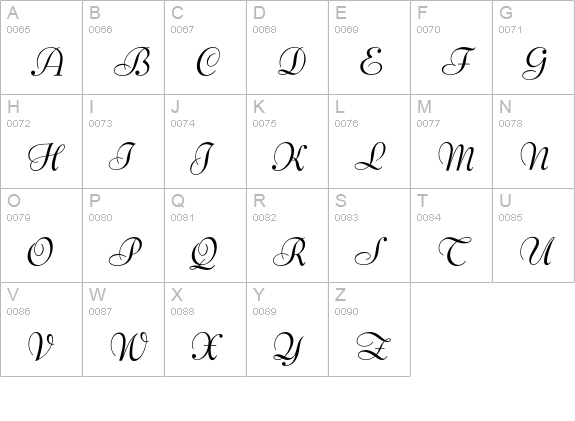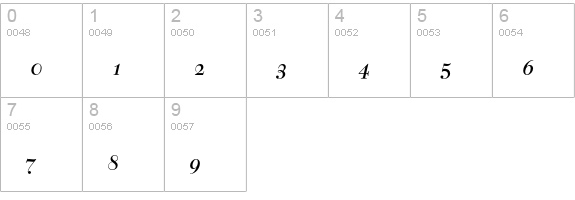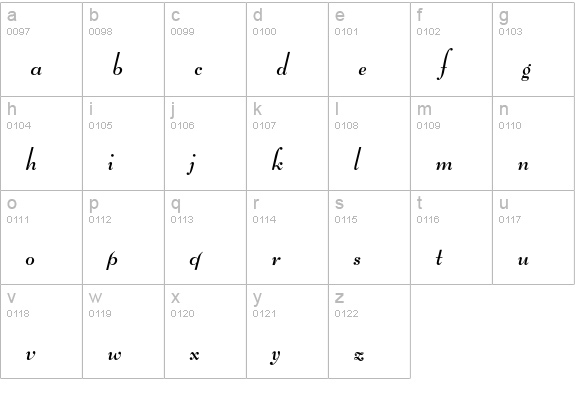
BernhardSchoenschriftEF-Regular Font Details
BernhardSchoenschriftEF-Regular is the standard, neutral variant in the BernhardSchoenschriftEF typeface family \xE2\x80\x94 well suited to general body text, paragraphs, and standard typographic work.
BernhardSchoenschriftEF-Regular font is a timeless and elegant typeface that exudes sophistication and charm. With its classic letterforms and graceful strokes, this font is perfect for adding a touch of refinement to any design project. Whether you're creating invitations, branding materials, or editorial layouts, BernhardSchoenschriftEF-Regular font will elevate your work with its distinctive style. The best part? This exquisite font is available for free download at FontsMarket.com, making it easily accessible for all designers and creatives looking to enhance their projects with a touch of elegance. Don't miss out on the opportunity to add BernhardSchoenschriftEF-Regular font to your font library and elevate your designs with its timeless appeal.